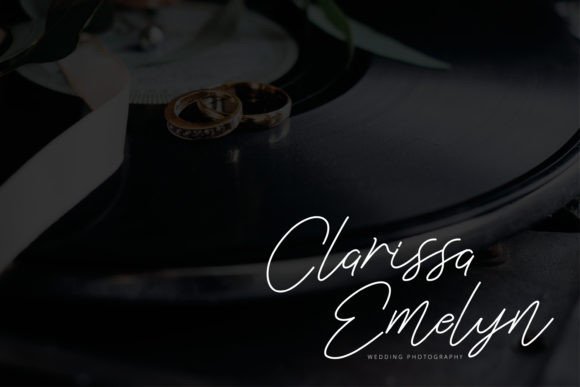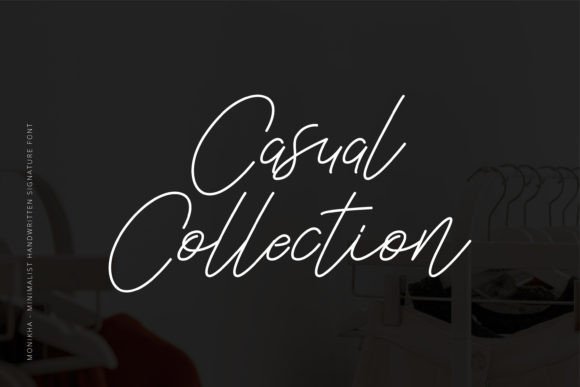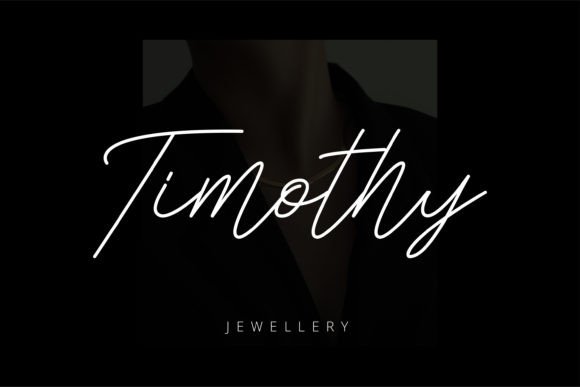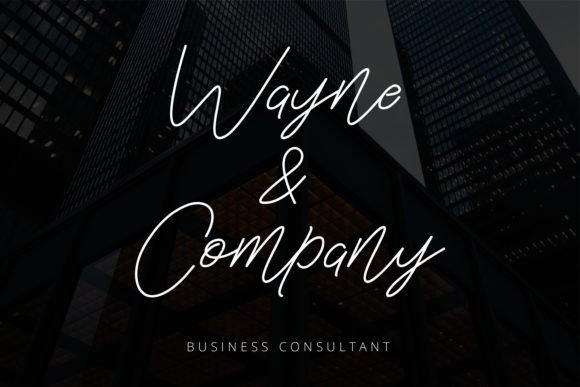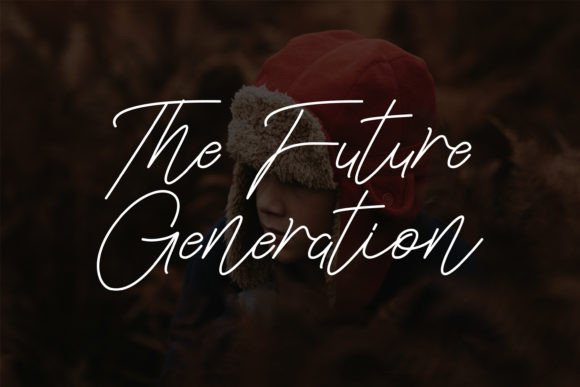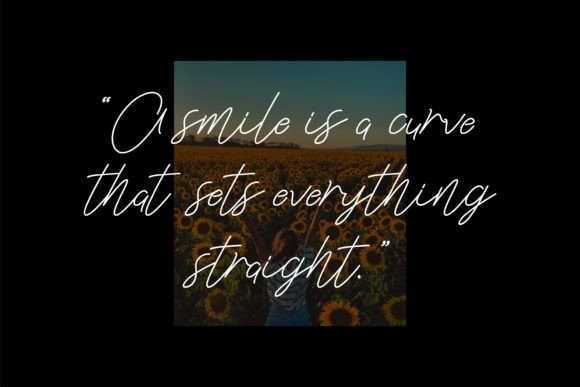
Introduction to Monikha Font
Have you ever stared at a blank canvas, trying to find the perfect font to bring your creative project to life? You’ve spent hours searching for the perfect combination of style and sophistication, only to end up with something that just doesn’t quite feel right. If you’re a designer looking for a high-quality font that will elevate your designs, look no further than the Monikha Font.
This beautiful, minimalist handwritten font is a game-changer for any design project. With its clean and smooth vibe, the Monikha Font is perfect for adding a touch of elegance to your branding, product packaging, invitations, and more. And the best part? It’s available for free download, making it an invaluable resource for designers on a budget.
- Unique, hand-drawn style with intricate details and ornate flourishes.
Honest Review: Monikha Font
As a designer, I’m always on the lookout for high-quality design resources to elevate my creative projects. Recently, I came across the Monikha Font, and I must say it’s a fantastic addition to my design toolkit.
One of the standout features of the Monikha Font is its versatility. It’s perfect for a wide range of creative projects, from editorial designs to branding materials. The font’s clean and modern design makes it easy to use, even for designers who are new to the industry.
- Some users may find the font’s modern design too minimalist for their taste
- The font may not be suitable for projects that require a more traditional or vintage aesthetic
Overall, I’m thoroughly impressed with the Monikha Font. It’s a high-quality design resource that’s perfect for creative projects. With its versatility, clean design, and free download, it’s an excellent addition to any designer’s toolkit.
The Monikha Font is ideal for creative projects such as logos, business cards, and social media graphics. Its high-quality design and transparent background make it a versatile design resource for a variety of applications.